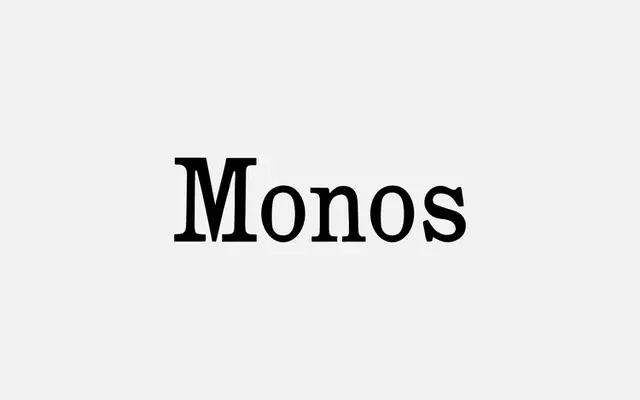
A blocky, condensed display serif with hand-carved irregularity that leans into woodtype nostalgia without feeling overwrought.
Monos is a single-weight display serif with condensed proportions and deliberate irregularity in its forms, giving it the texture of hand-lettering or carved type. The blocky construction and friendly character make it well-suited to branding, poster work or logotype uses where warmth is more useful than precision. Available as a single OTF file at a low price point.
Described as a blocky serif with condensed, irregular forms and hand-carved character, placing it firmly in the display serif category with vernacular or woodtype influences.